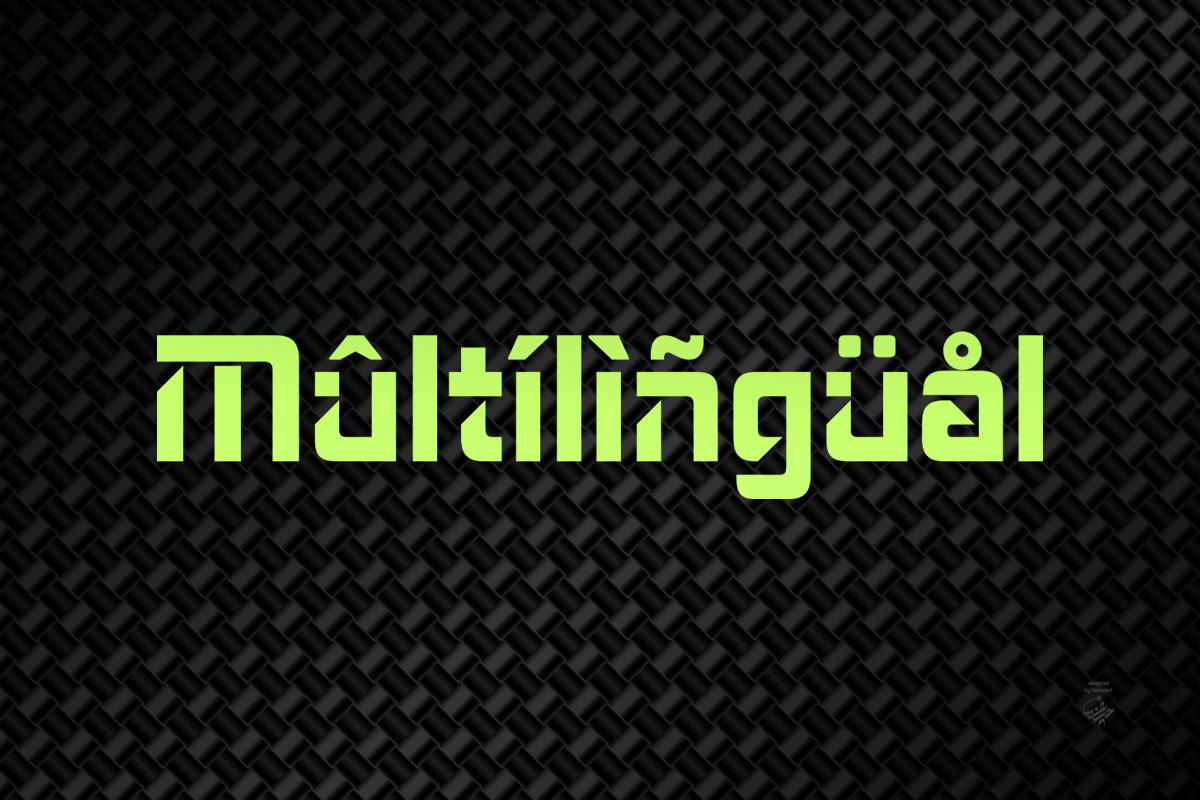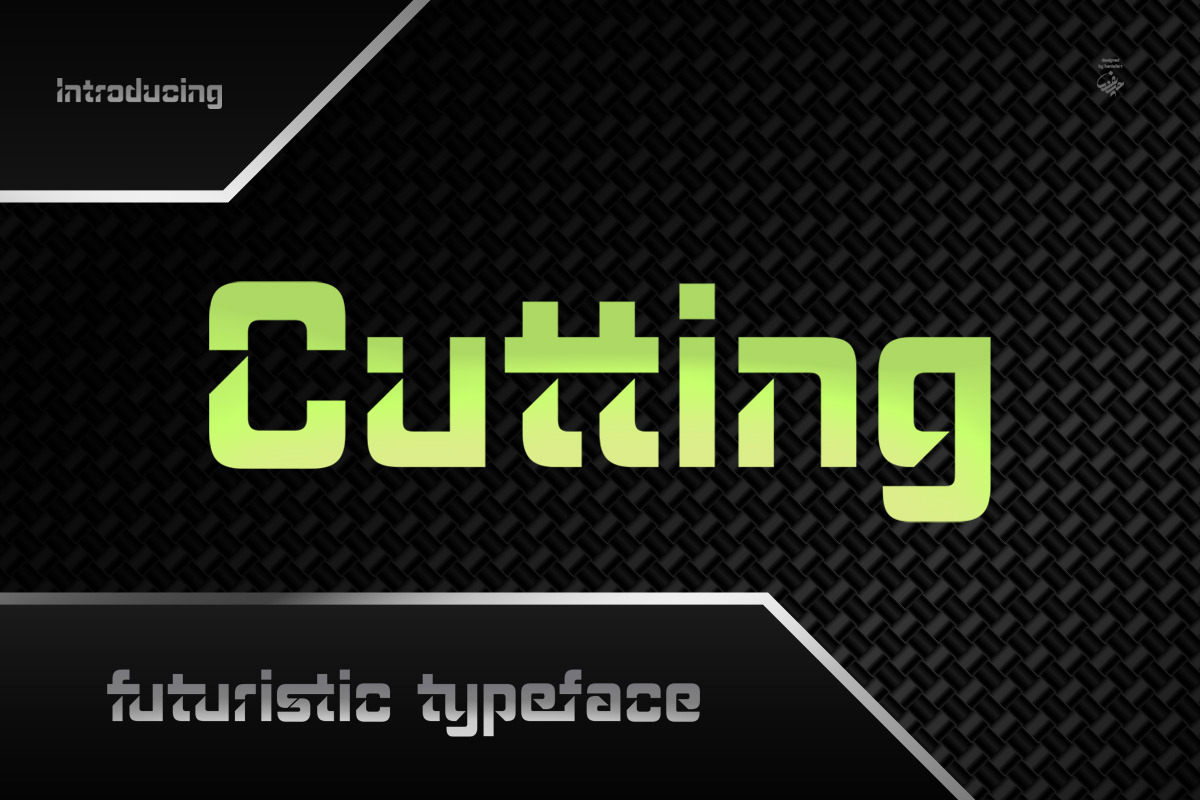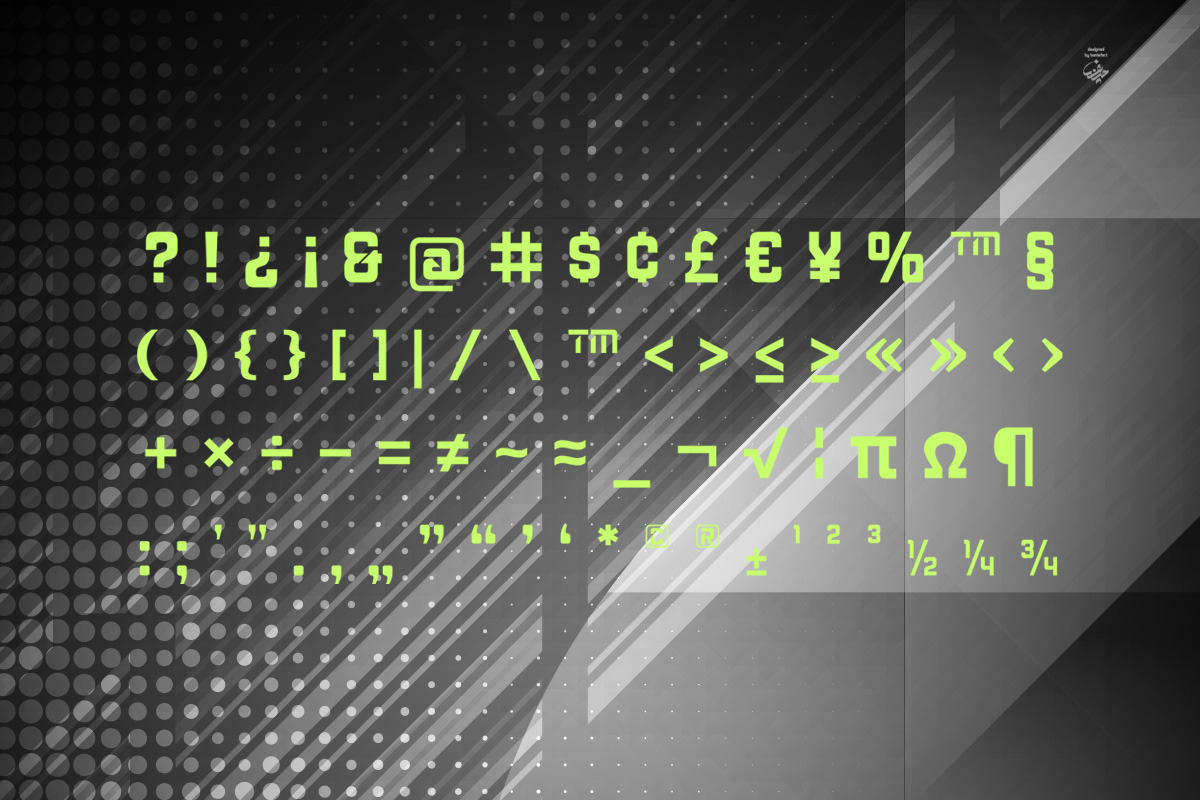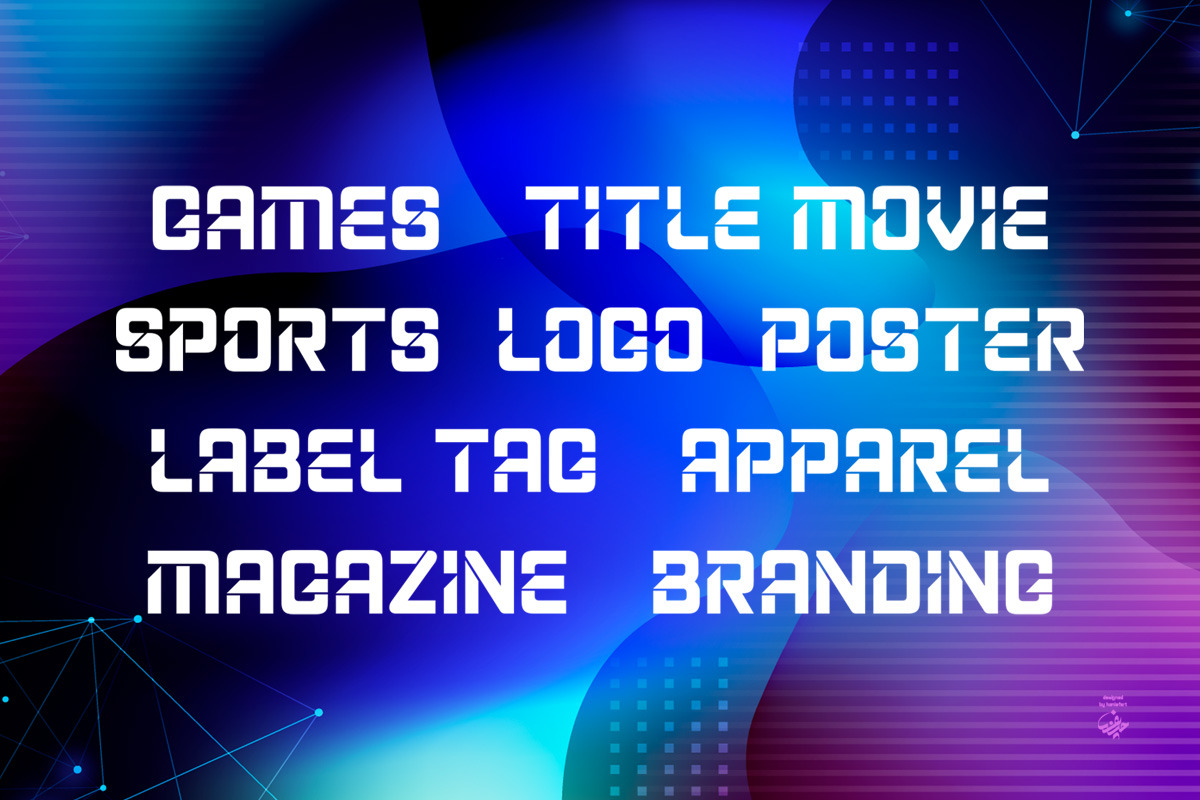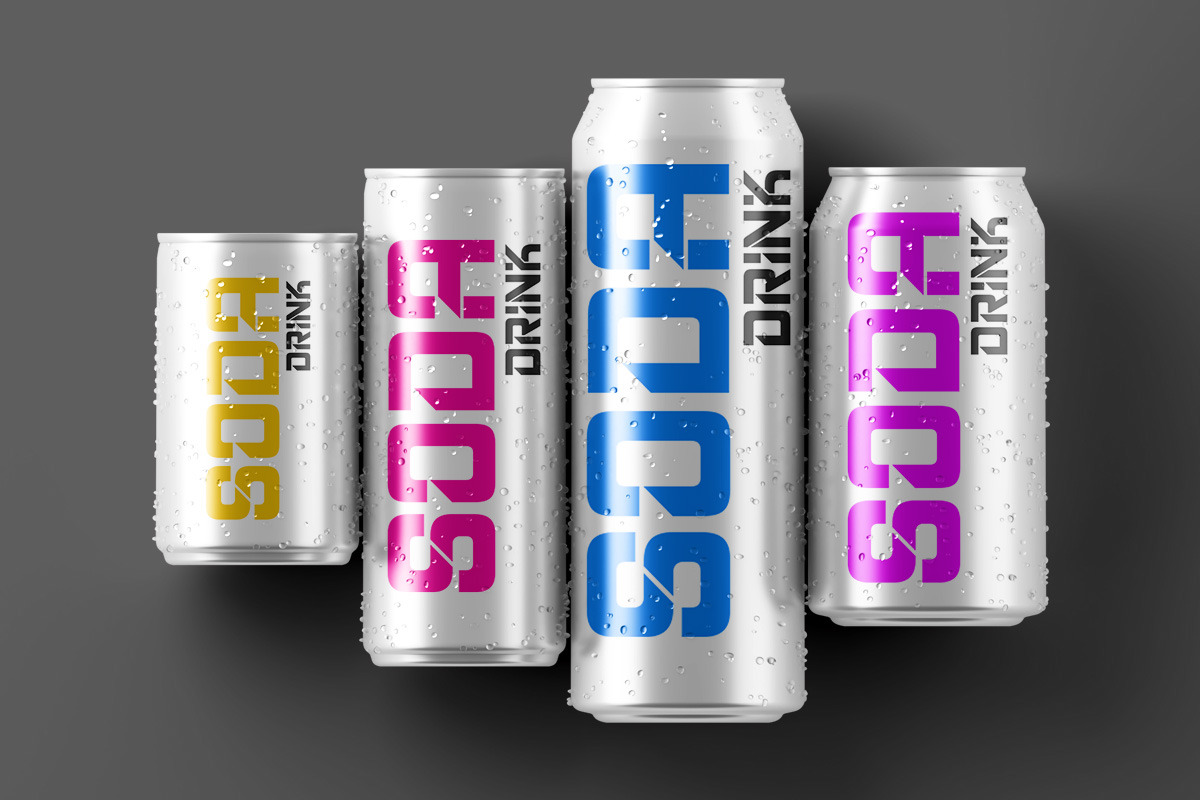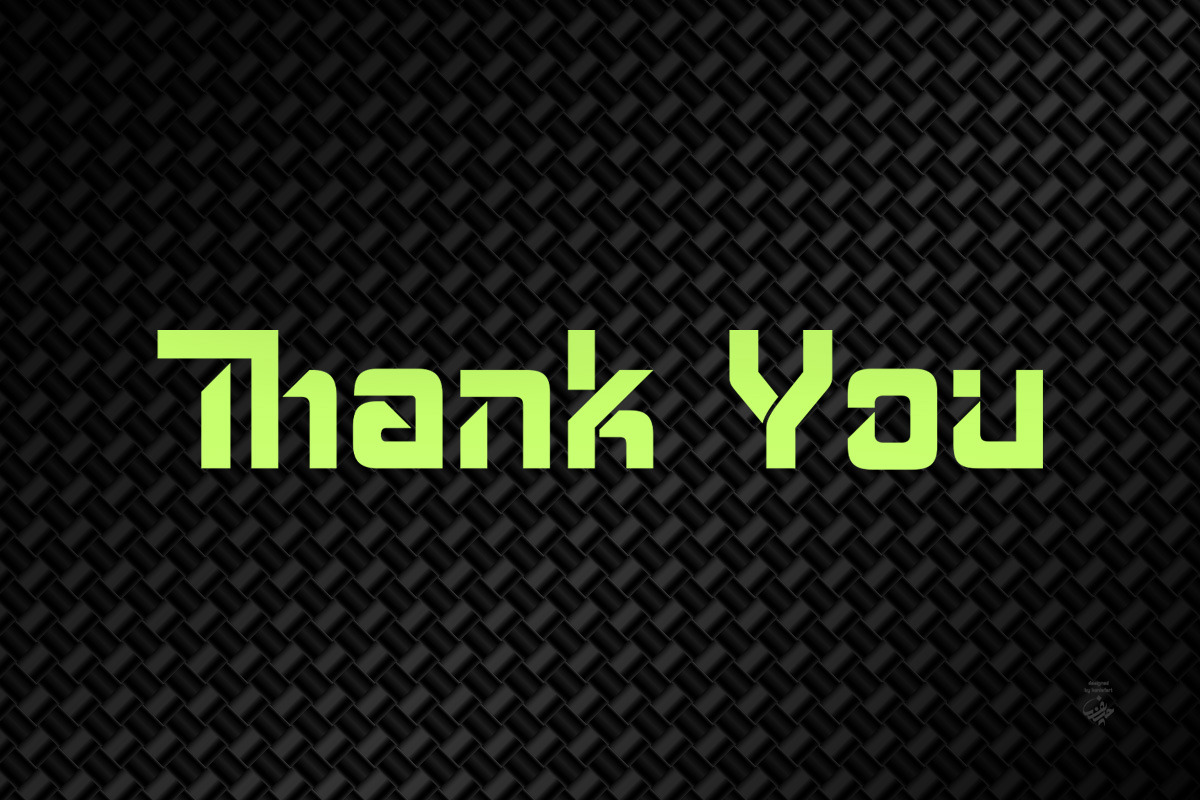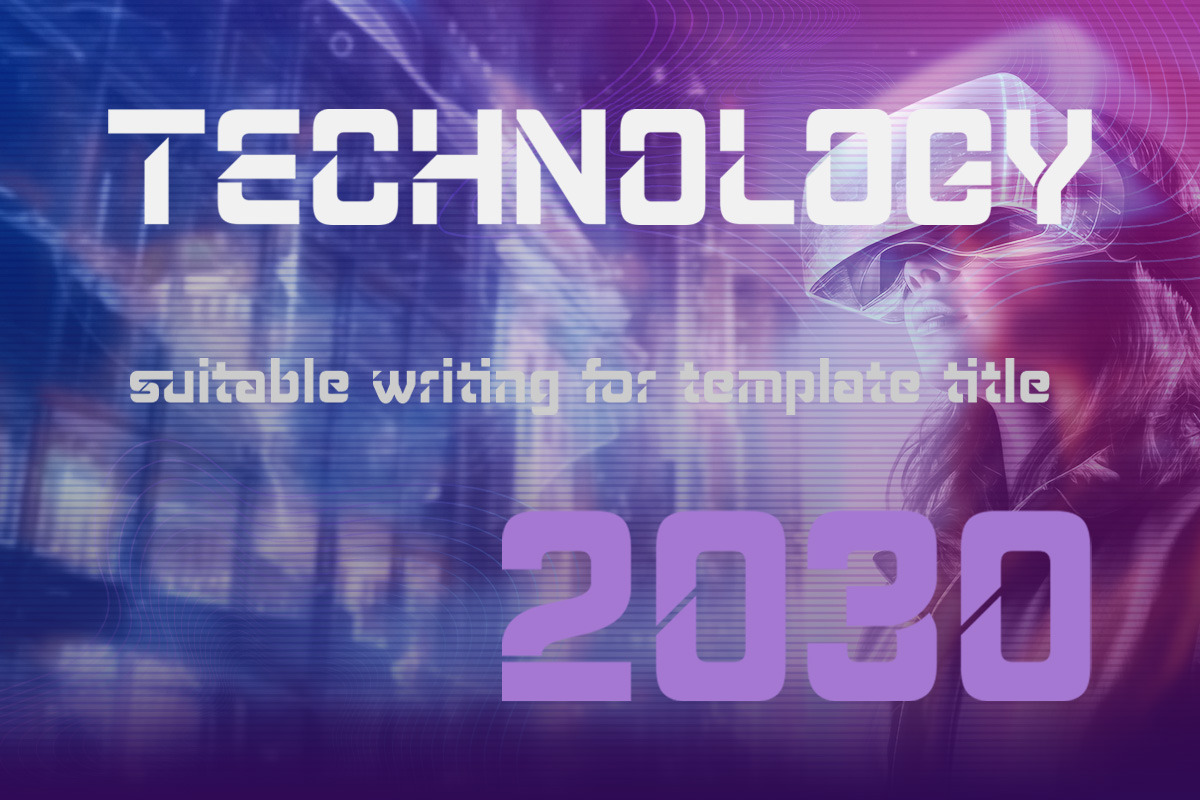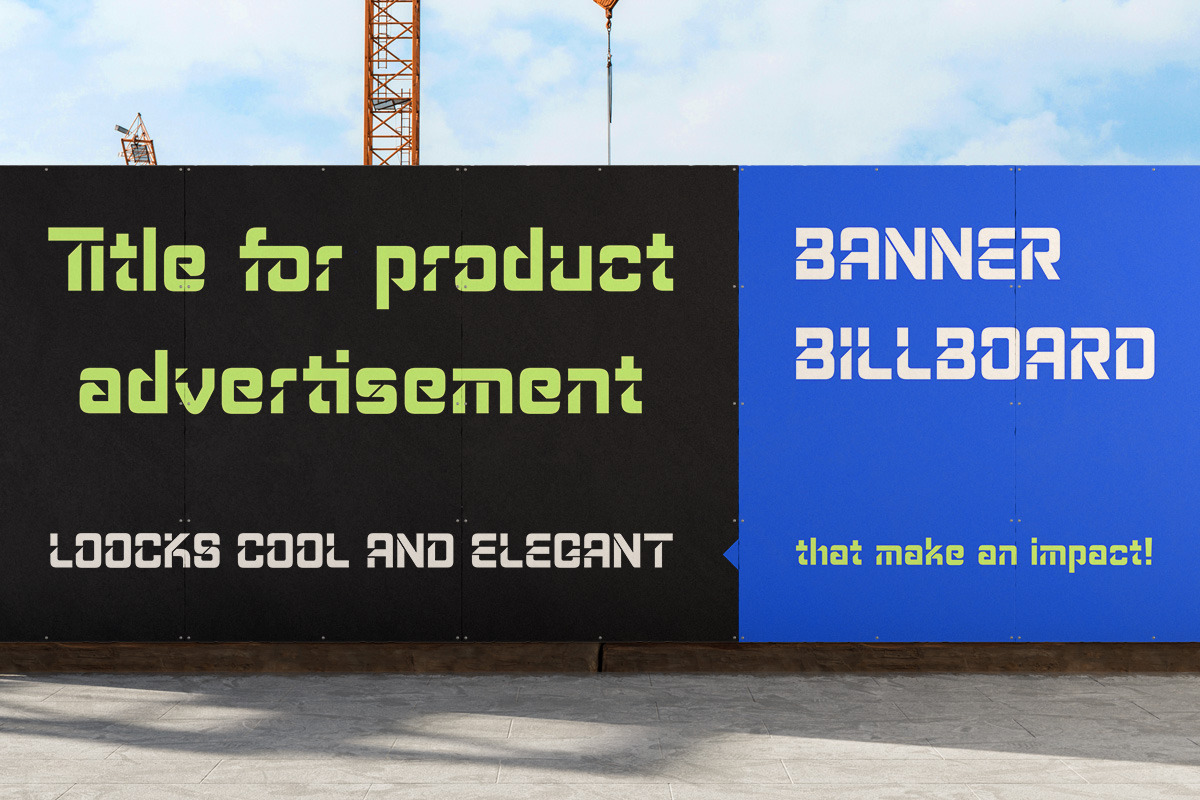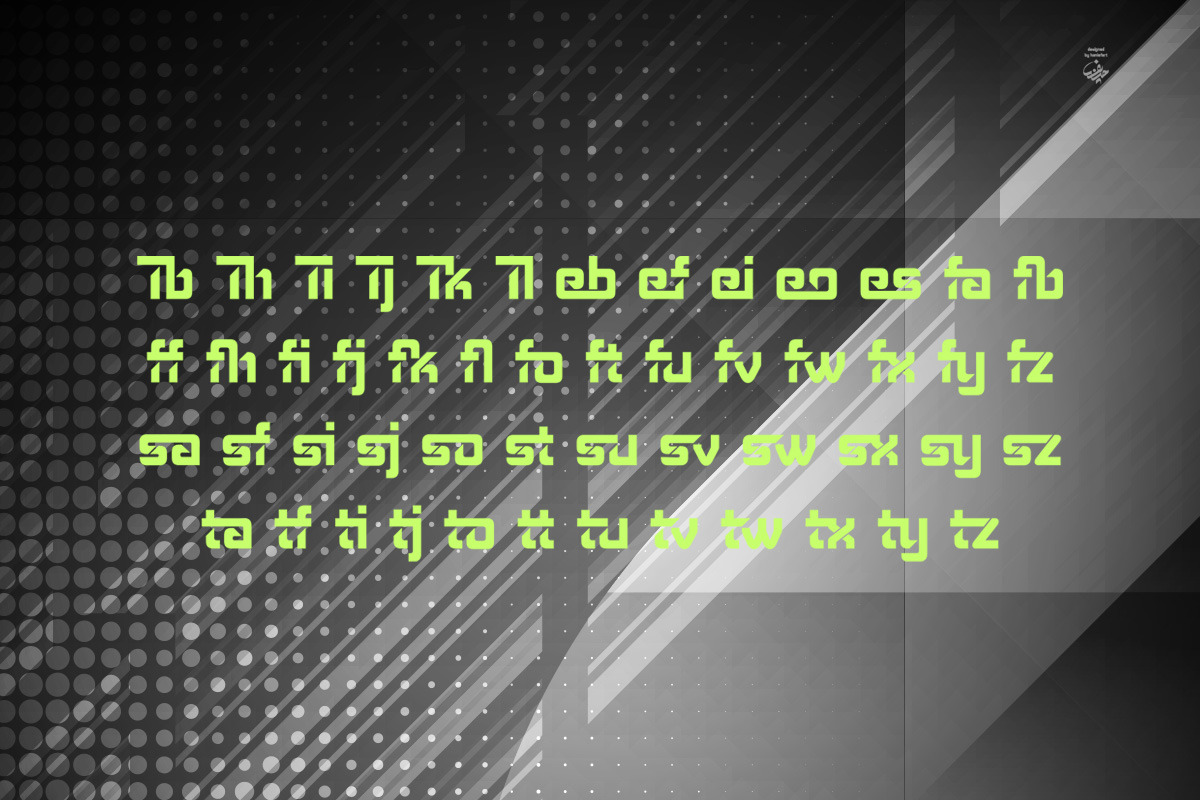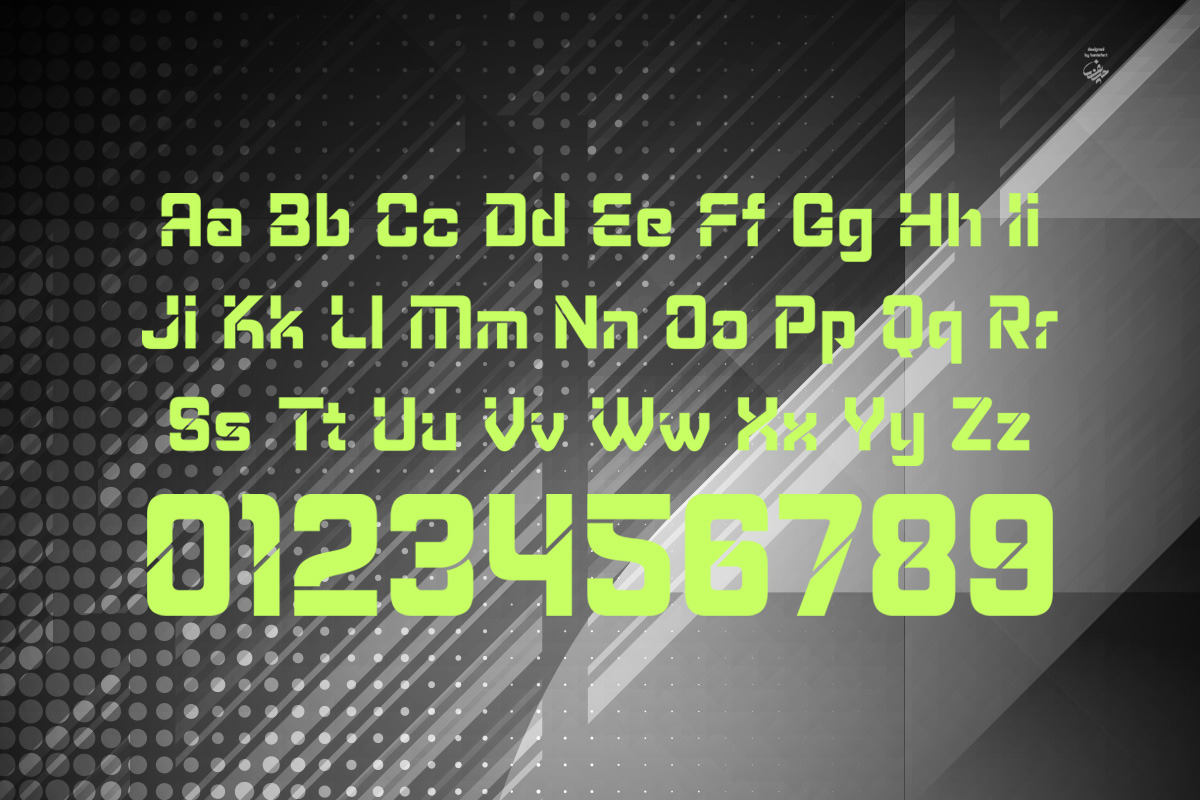
Cutting - Futuristic Sans Serif Font
Cutting is a futuristic, elegant and athletic handcrafted font, a unique, beautiful and modern look. Cutting comes with upper and lower case letters, as well as punctuation. Suitable for corporate branding, movie titles, magazine covers, logos, template titles and also for sports teams and many more.